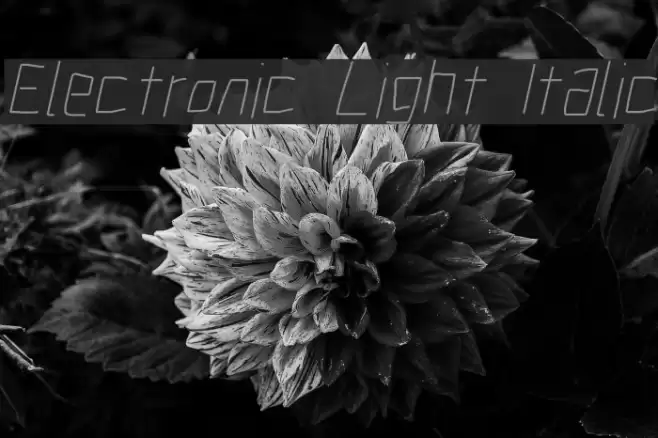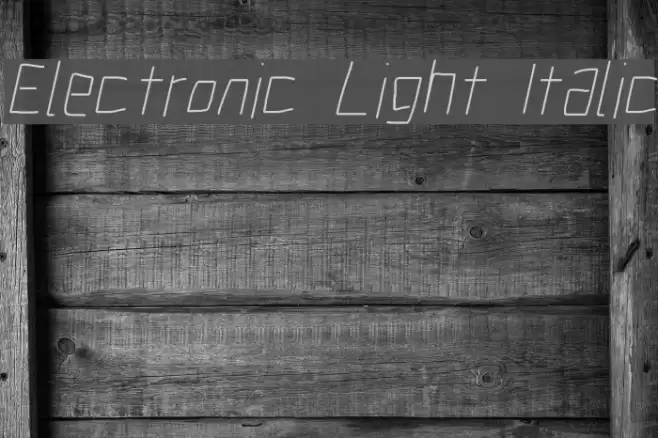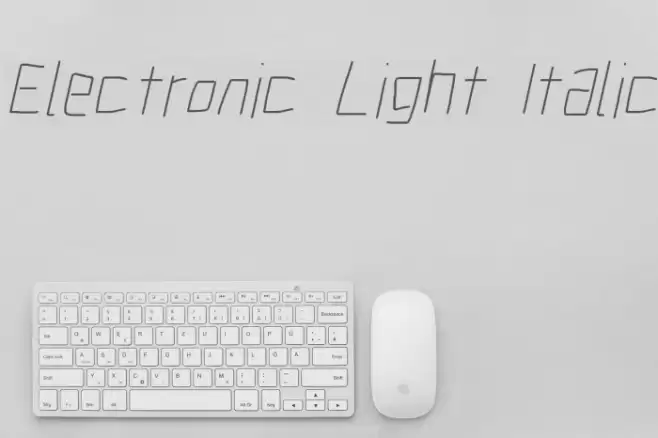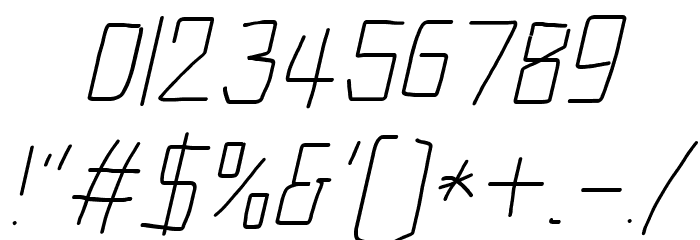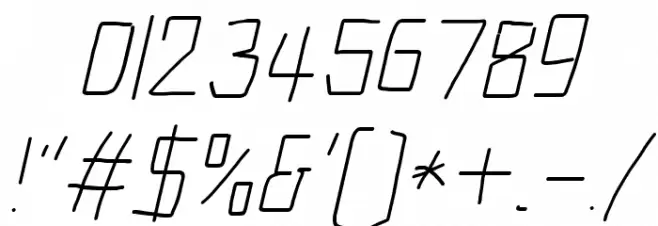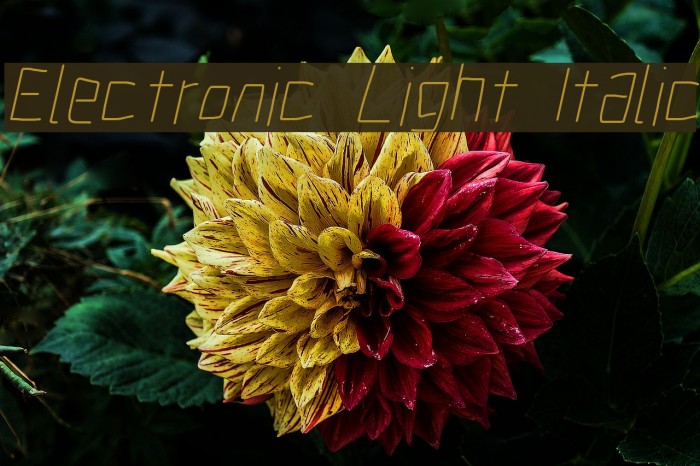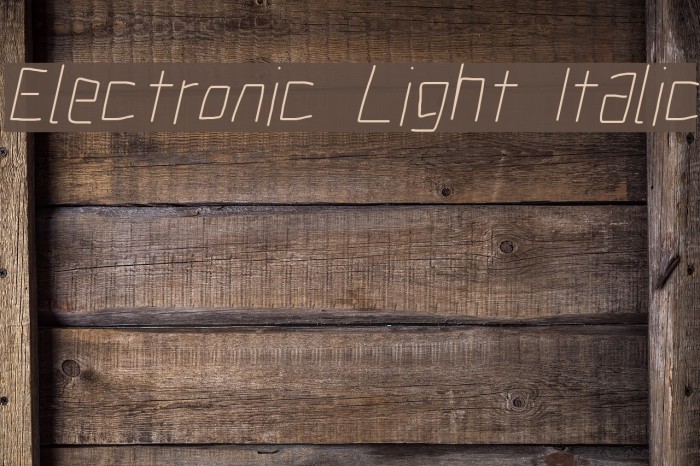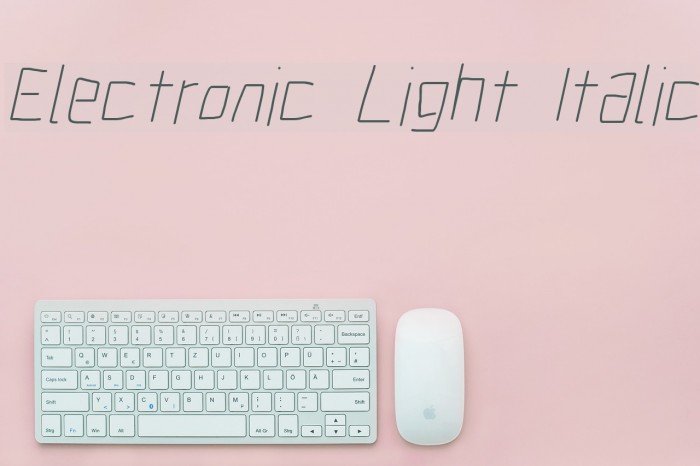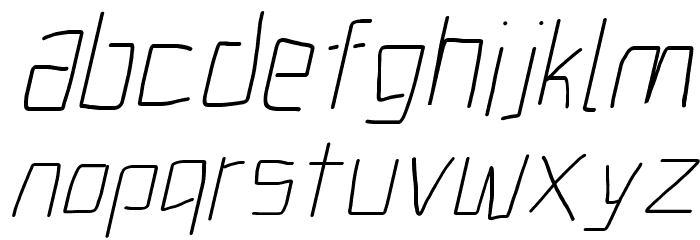
Electronic Light Italic
This font features a sleek, futuristic design with a light and airy feel. The characters are elongated and slightly slanted, giving them an italicized appearance. The strokes are consistent in thickness, contributing to a uniform and clean look. The angular and geometric shapes of the letters evoke a sense of modernity and technology. The spacing between characters is moderately tight, which enhances the streamlined aesthetic. This font is ideal for projects that require a contemporary and innovative touch, such as tech branding, digital interfaces, or sci-fi themed designs.
A sleek, futuristic, and italicized font with geometric shapes and consistent stroke thickness.
- Proposed Projects: Ideal for tech branding, digital interfaces, sci-fi themed designs, and modern advertising.
- Weight: Light
- Character Spacing: Tight